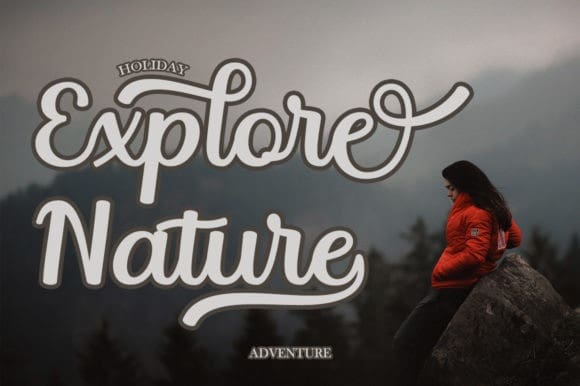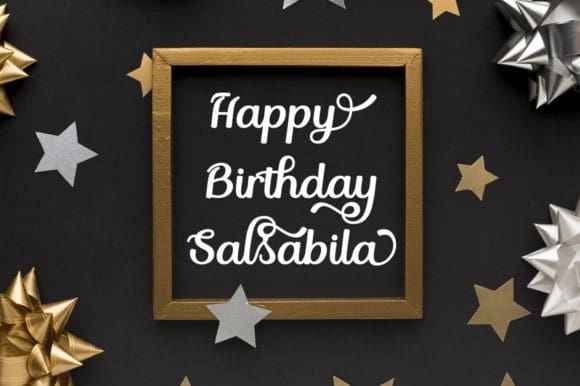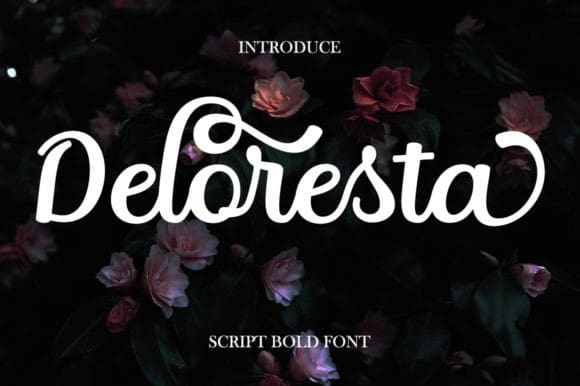
Deloresta Script Font
Deloresta Script Font, is a stylish retro-modern script. This font is PUA encoded which means you can access all of the glyphs and swashes with ease!